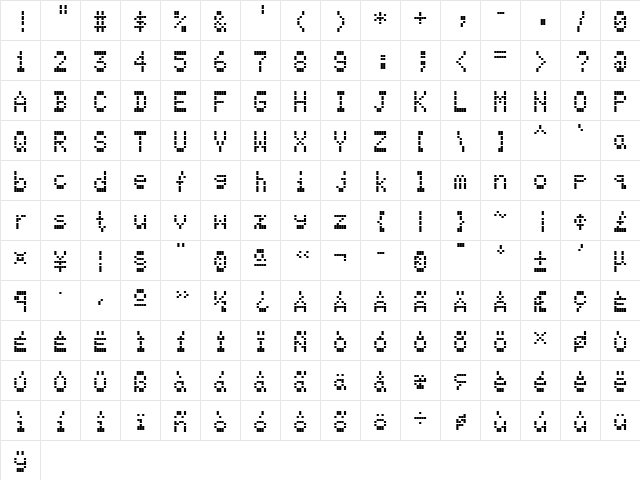
ScreenMatrix RegularCondensed
Design Context for ScreenMatrix Typeface
ScreenMatrix takes a measured approach to typography — its balanced proportions and neutral character make it a reliable workhorse for both digital and print work. The condensed width makes it efficient for tight spaces without sacrificing legibility.